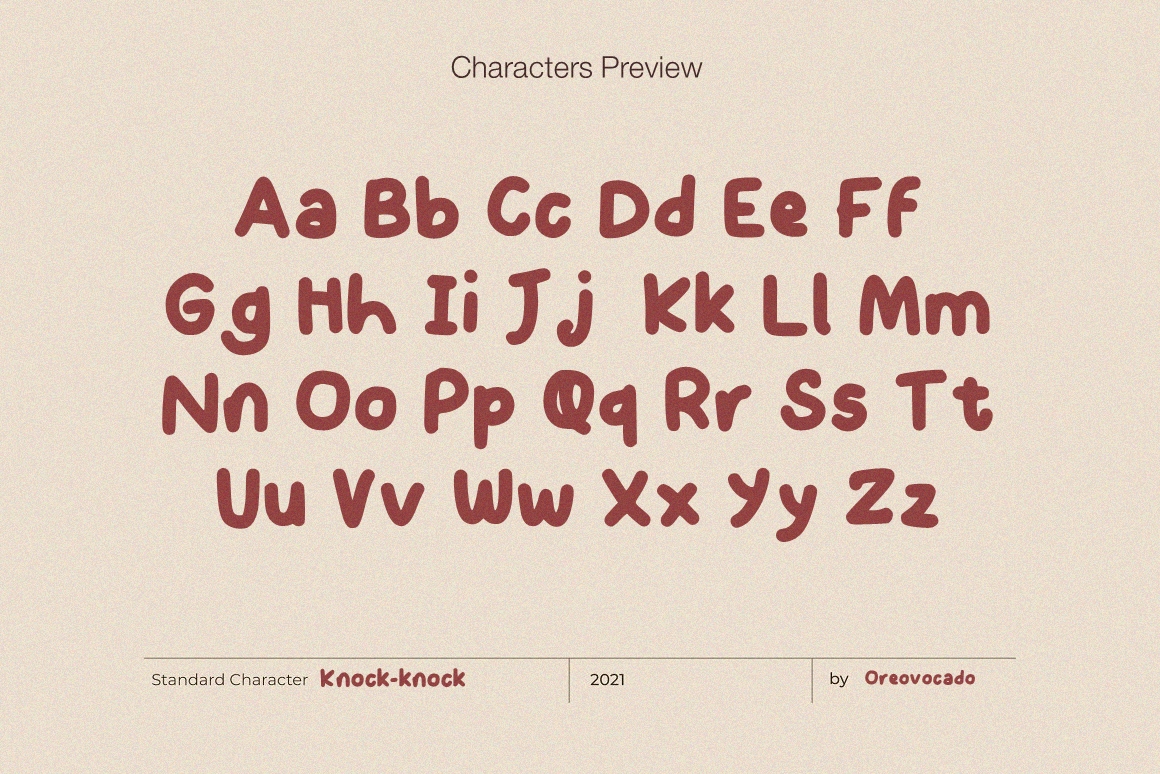
Knock2 Font
Knock2 Display Font
This is a playful and fun display font.  Use it to create spectacular your designs! You can use it as a logo, badge, insignia, packaging, headline, poster, t-shirt/apparel, greeting card, and wedding invitation.